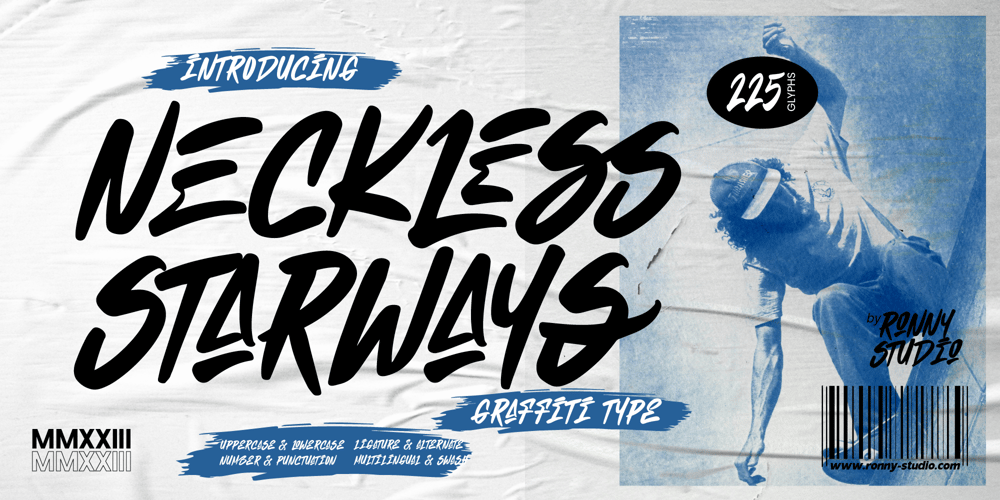
Neckless Starways Font Family was designed by Rony Rizki Jaya and published by Ronny Studio. Neckless Starways contains 2 styles and family package options. Neckless Starways is distinctive handwriting and encapsulates the essence of street style. This typeface is perfect for an poster event, movie title, streetwear stuff, magazine layout, fashion brand, quotes, or simply as a stylish text overlay to any background image.